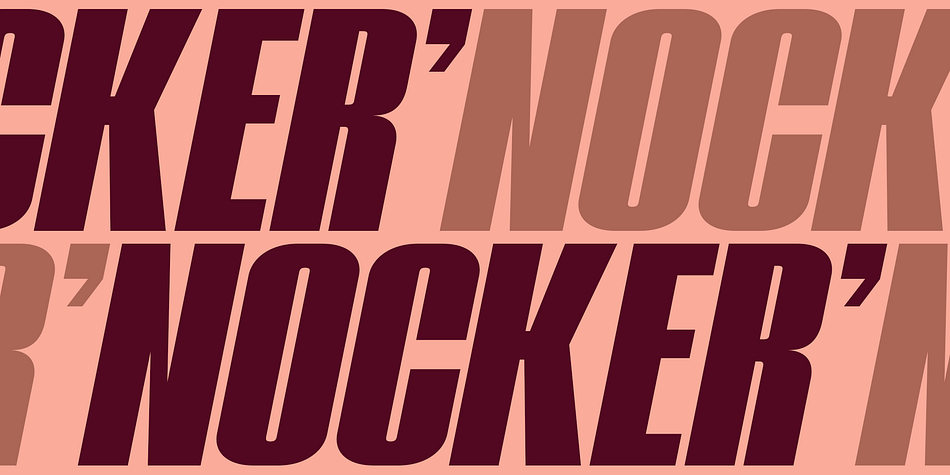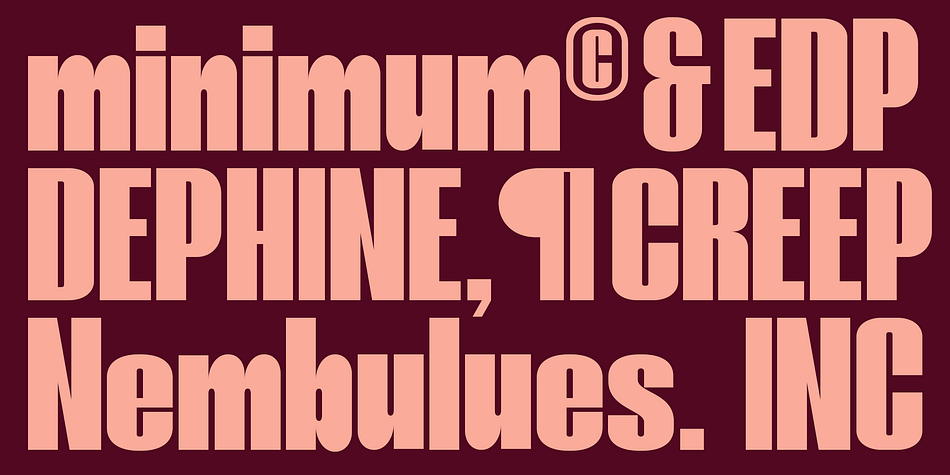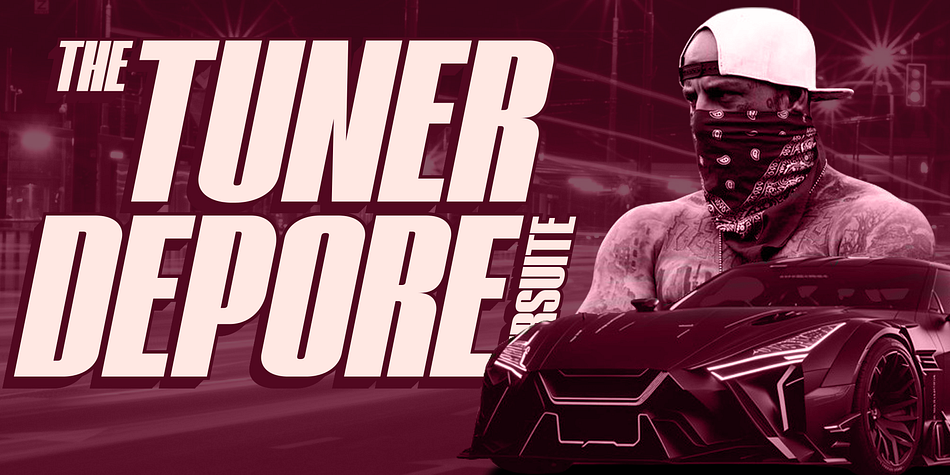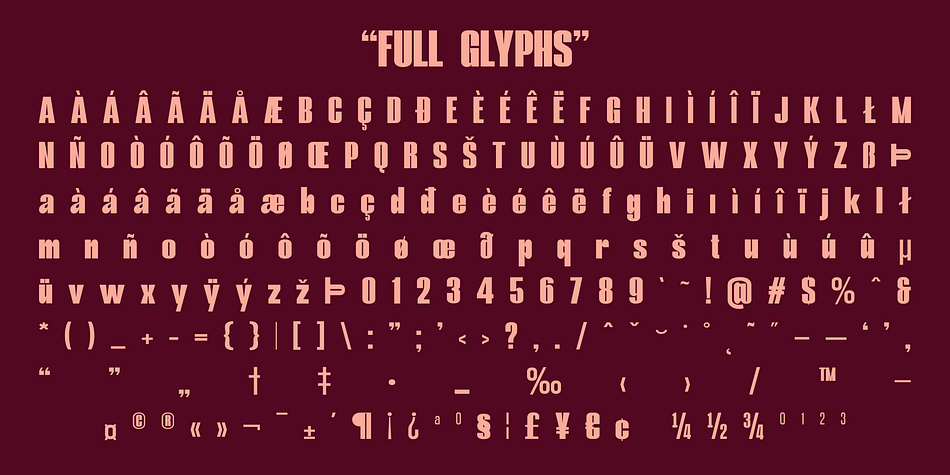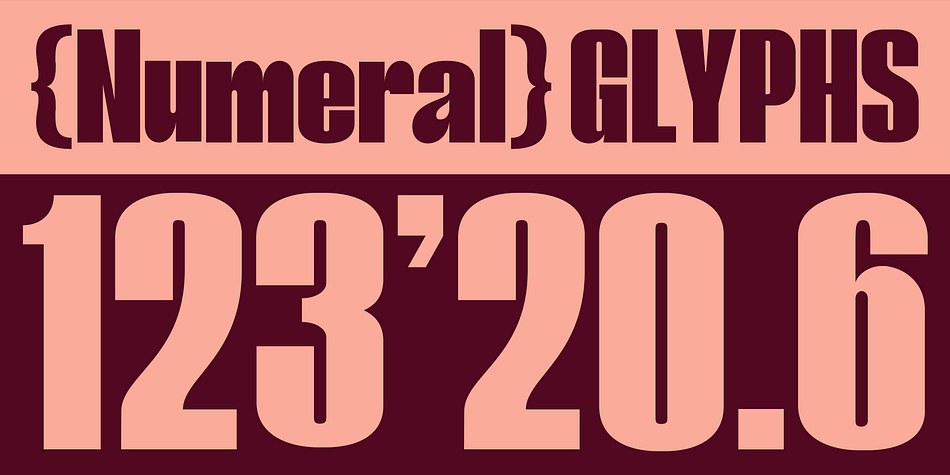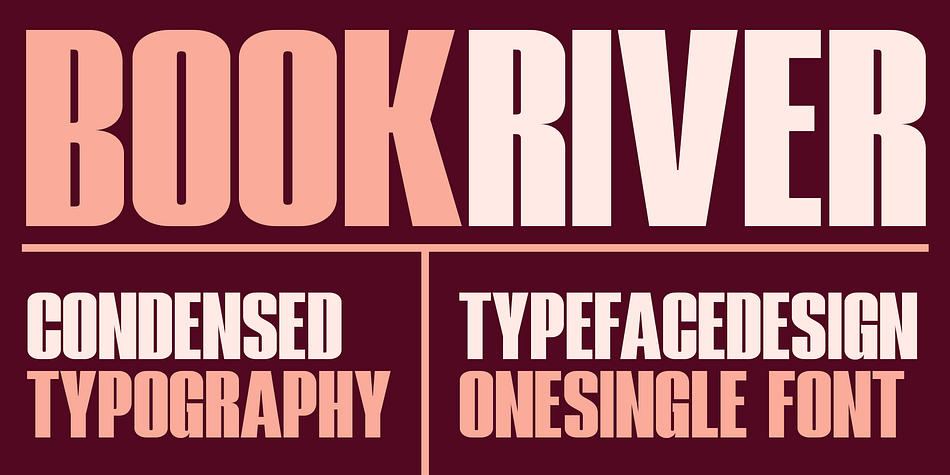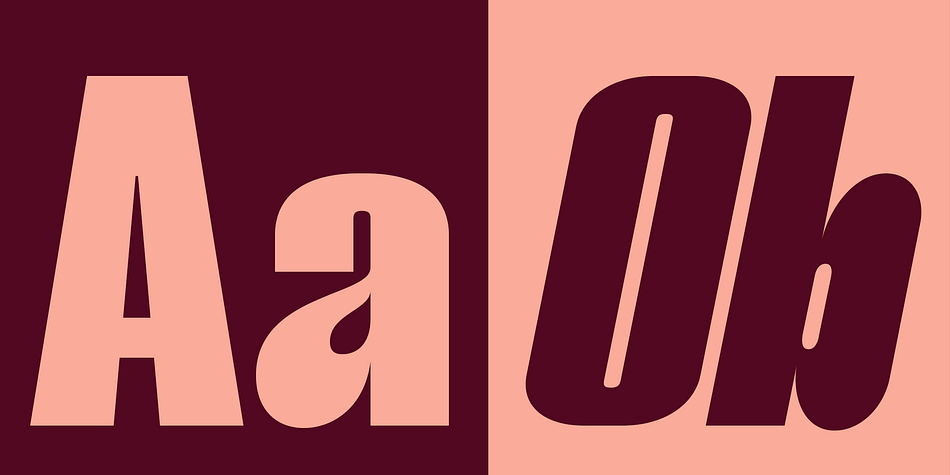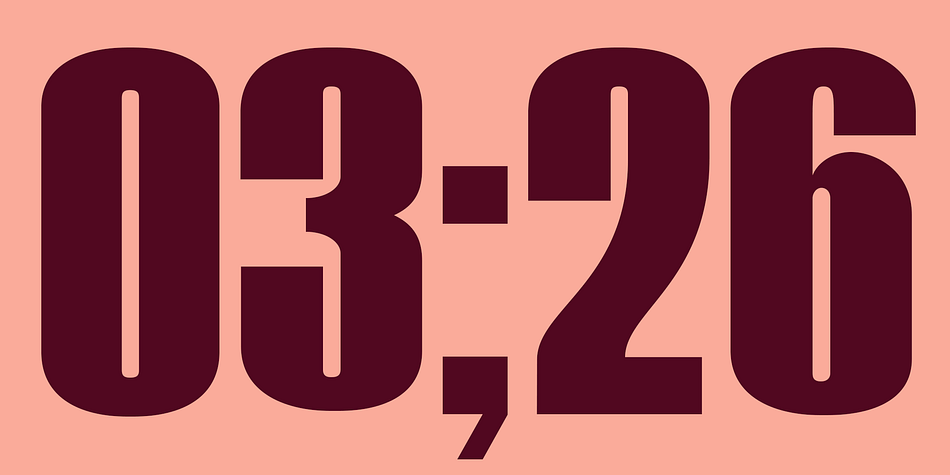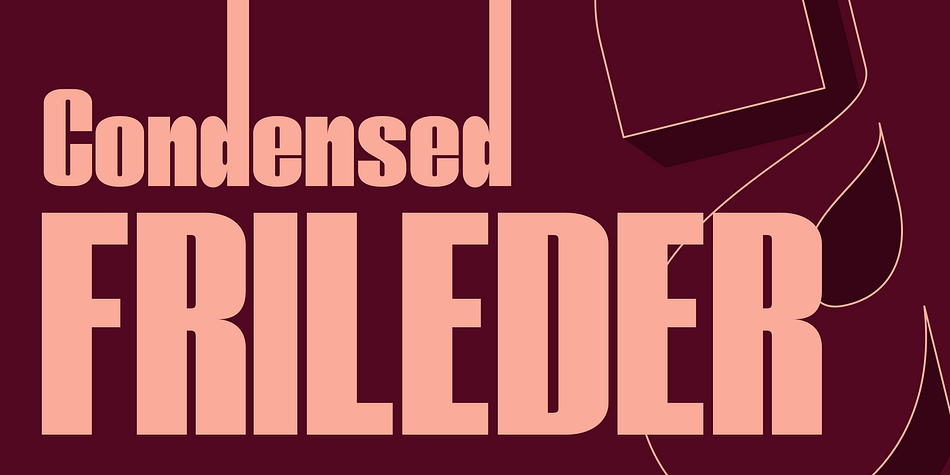
Frileder
Frileder is a display sans font family. This typeface has two styles and was published by Gatype.
The Frileder font is perfect for branding, poster design, t-shirts, invitations, designs for kids, and editorial design. It comes with over 400 glyphs, including ligatures. OpenType features include style sets, character variants, starting and ending forms, and multilingual support.